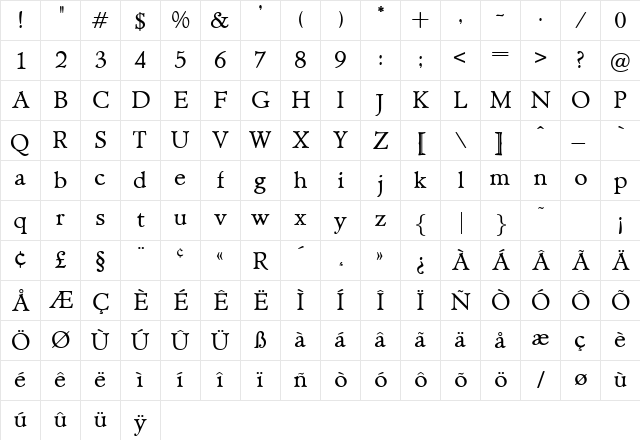
Ammonite Regular
Design Context for Ammonite Typeface
Ammonite takes a measured approach to typography — its balanced proportions and neutral character make it a reliable workhorse for both digital and print work.